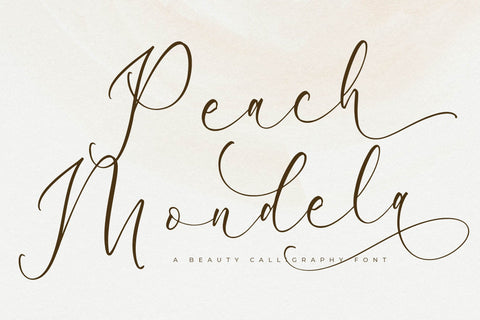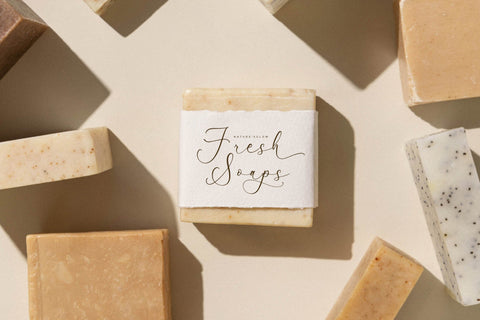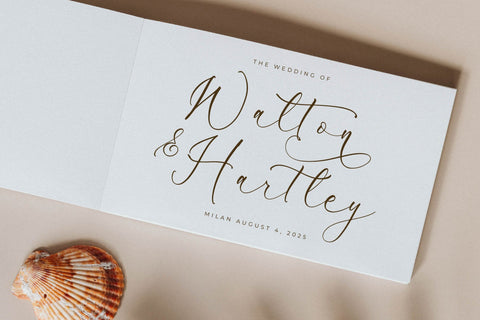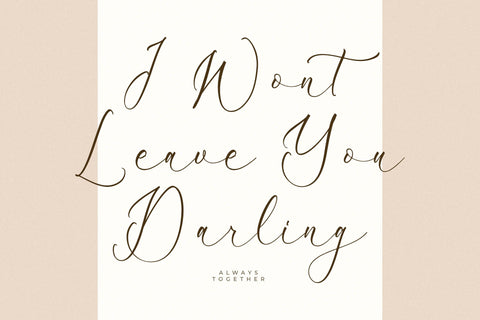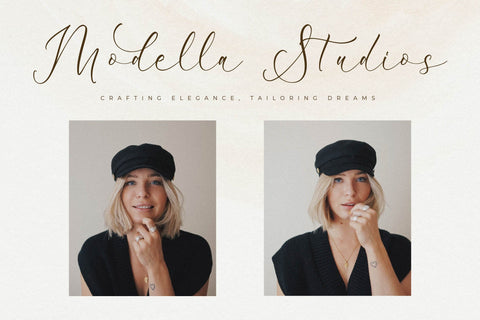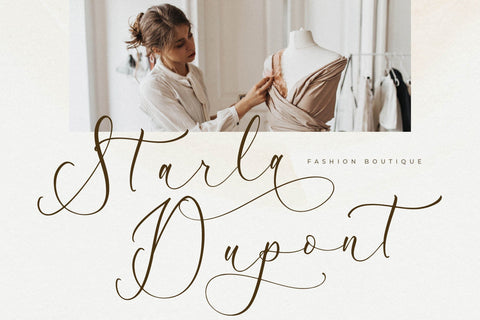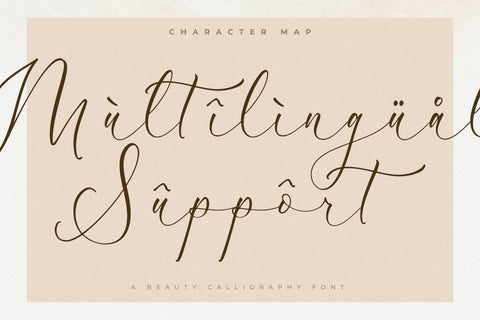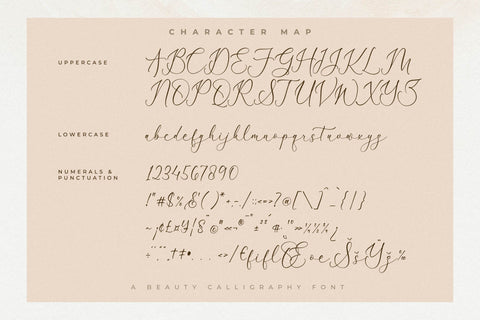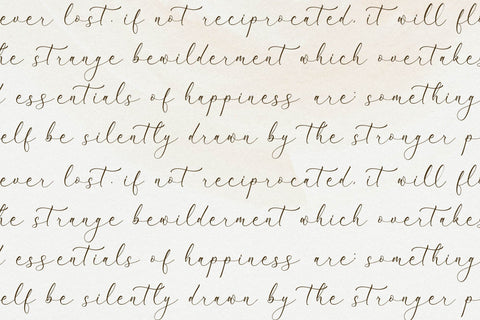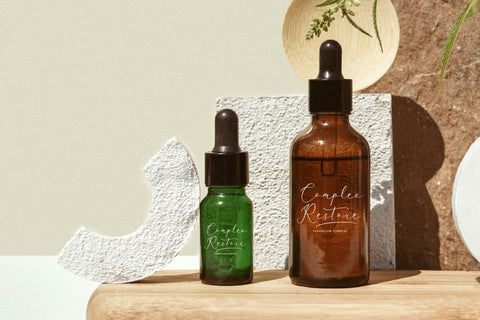
Peach Mondela - Beauty Calligraphy Font
Proudly present Peach Mondela - Beauty Calligraphy Font , created by Storytype,
A luxury script that has own unique style & modern look.